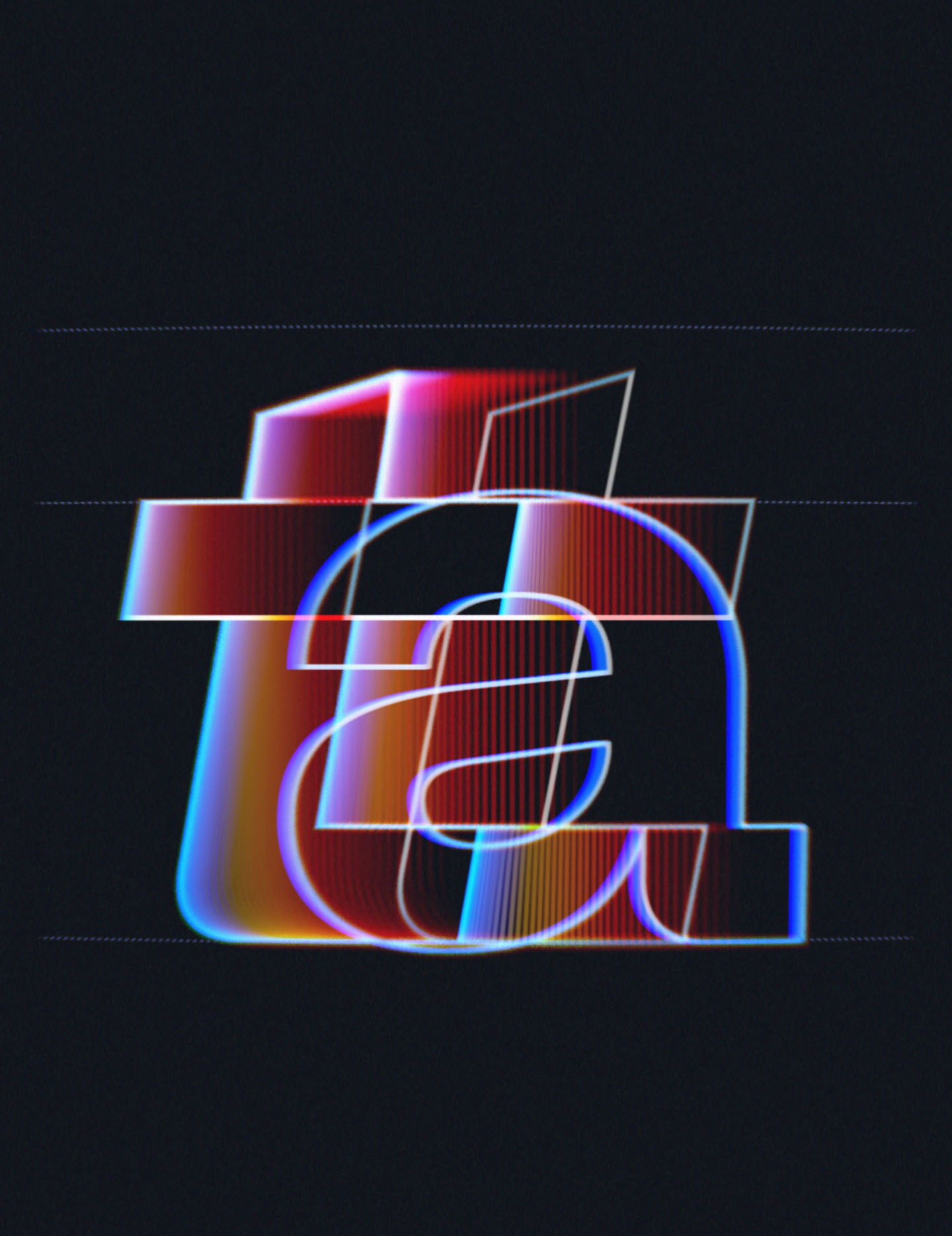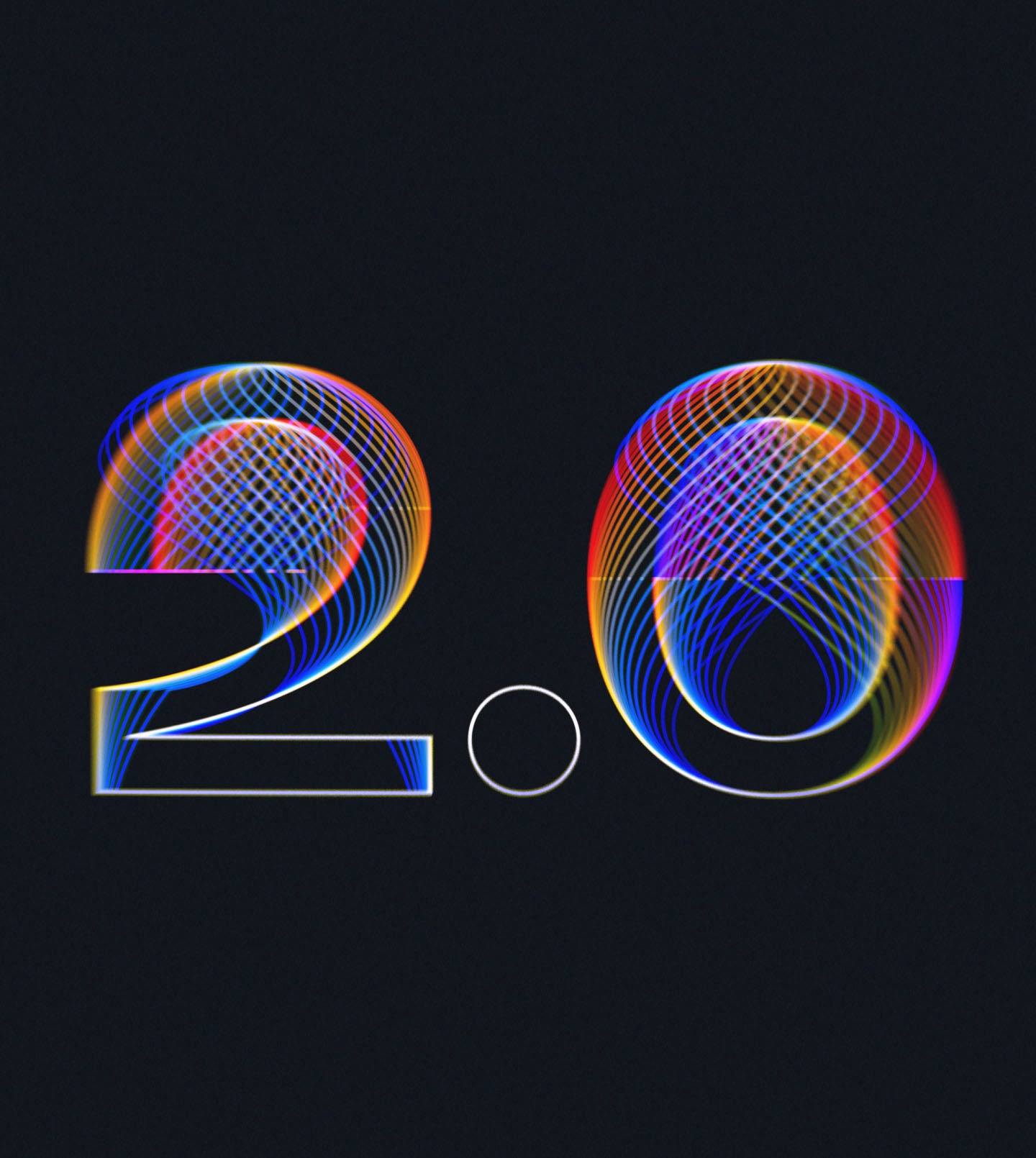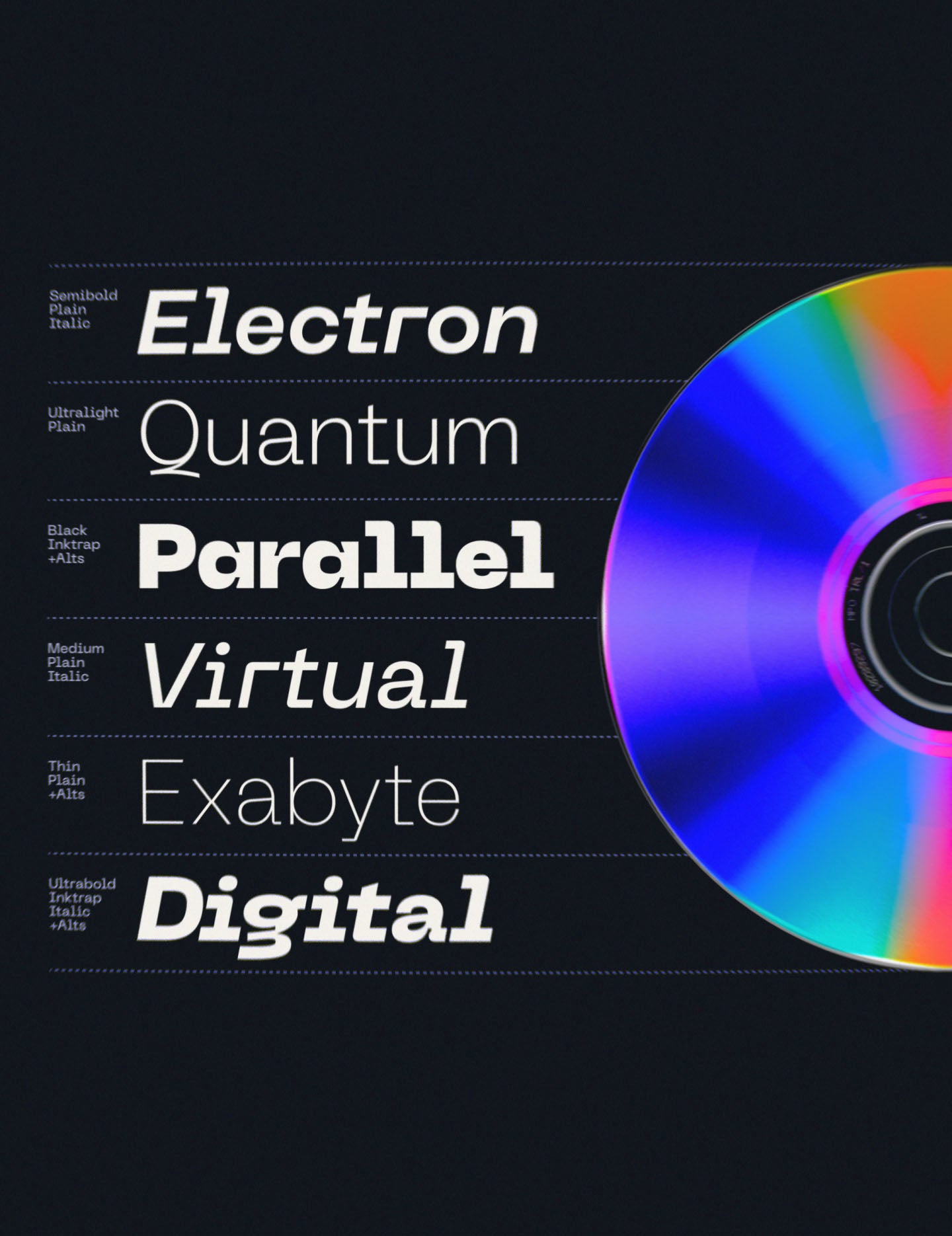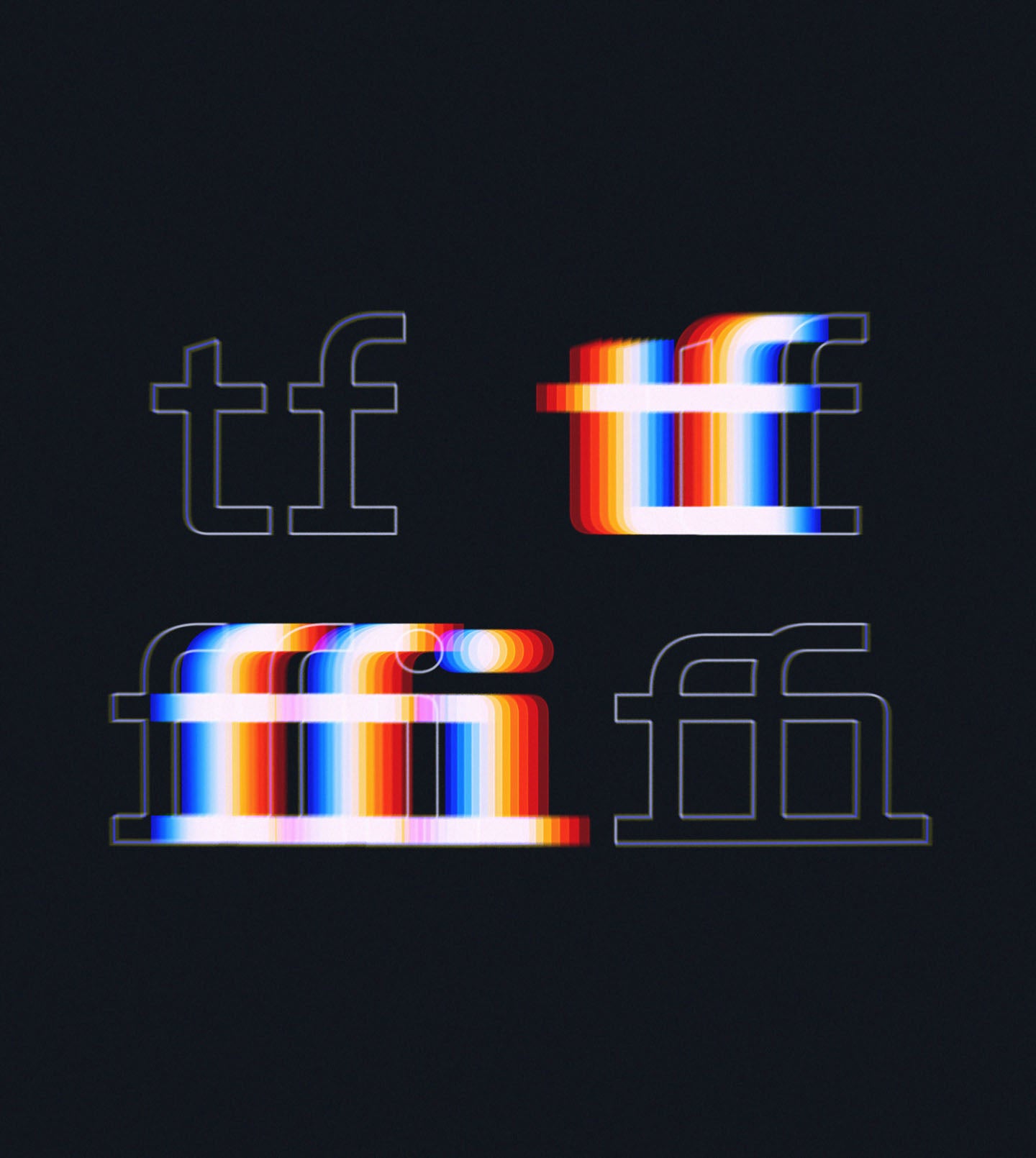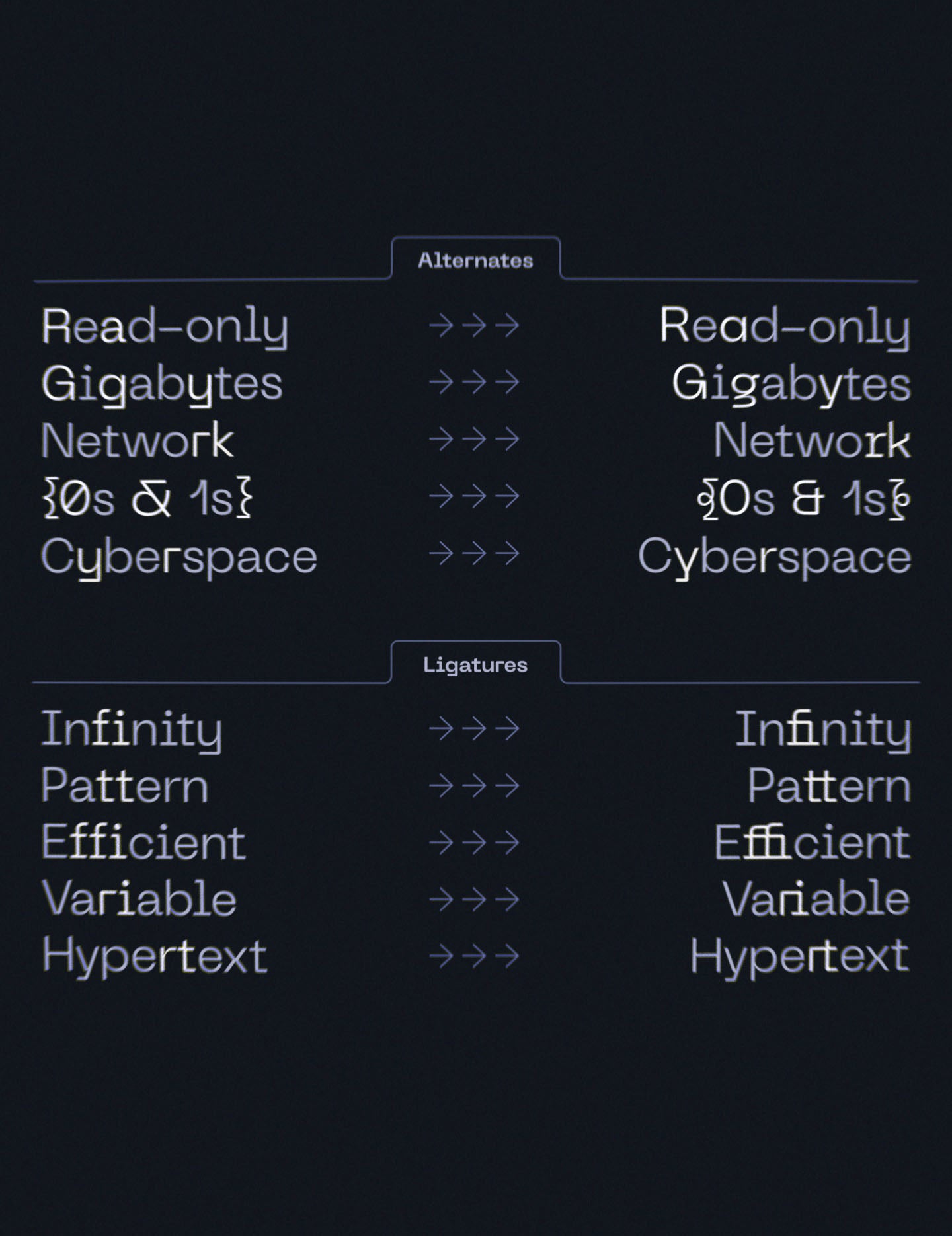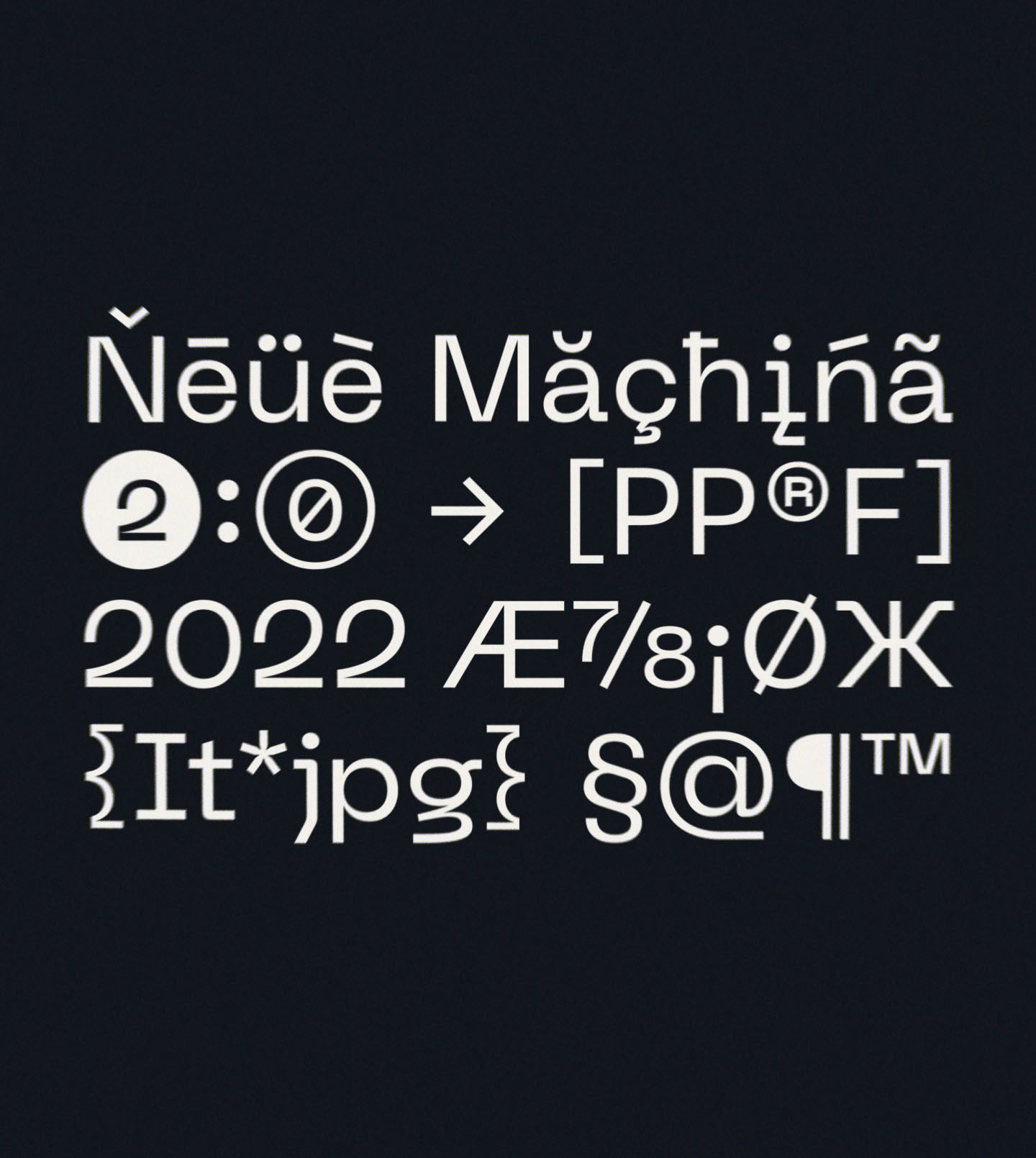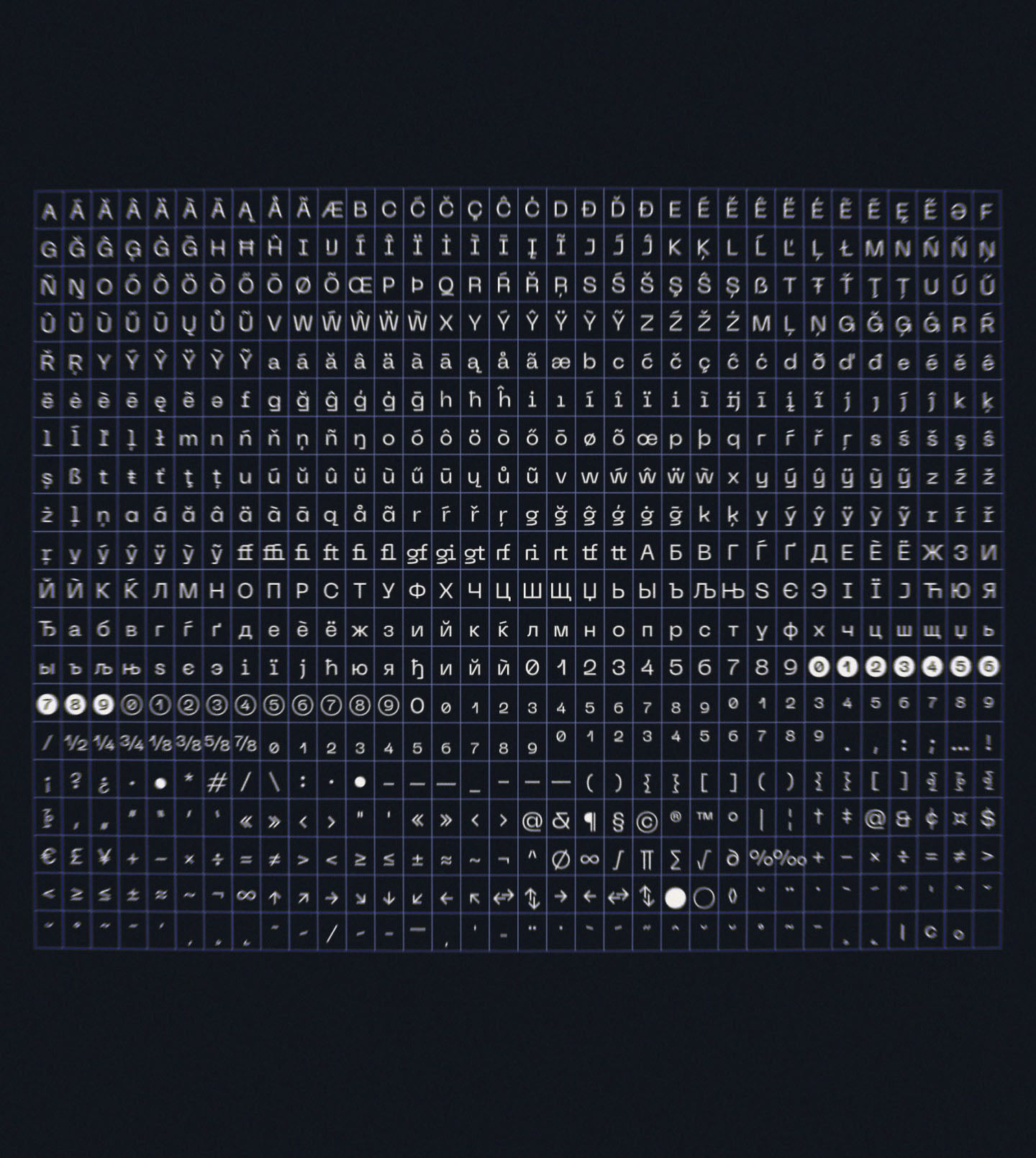
Neue Machina
A powerful and meticulously crafted typeface boasting monospace/geometric type features as well as apparent and deep ink traps in its heavier weights
A love letter to the digital age.
Neue Machina is a powerful and meticulously crafted typeface boasting monospace/geometric type features as well as apparent and deep ink traps in its heavier weights ● It is inspired by the aesthetics of robotics and machines ▲ a font suited for the future of technology ■ It was designed to be versatile, to blend in your designs in its lighter weights or to give them a lot of personality in its heavier ones.
It comes in a Inktrap cut as well as a Plain cut for your more subtle designs. Each cut comes with their corresponding italics and everything is variable for maximum versatility!
2 cuts X 18 Styles each with 737 Glyphs
Including Italic & Cyrillic Support